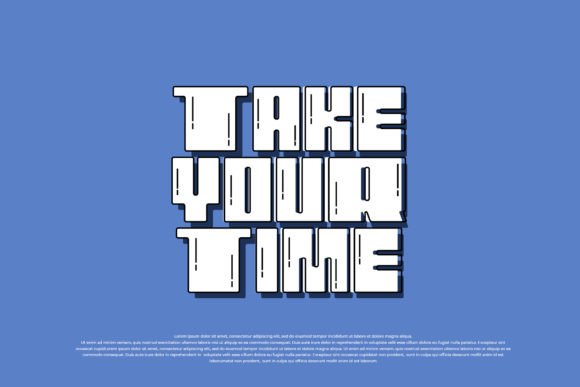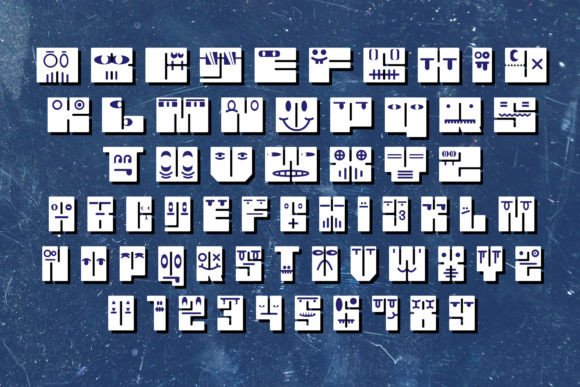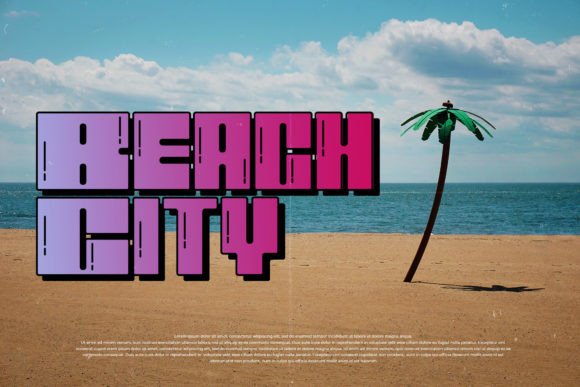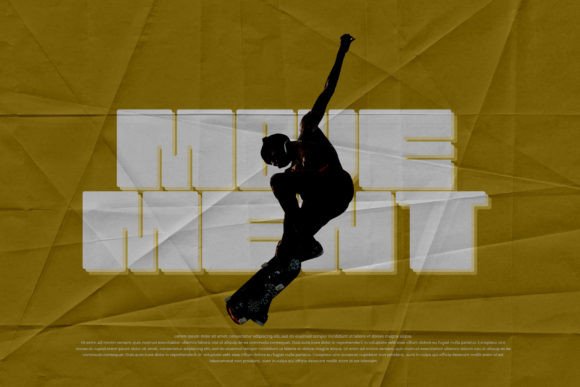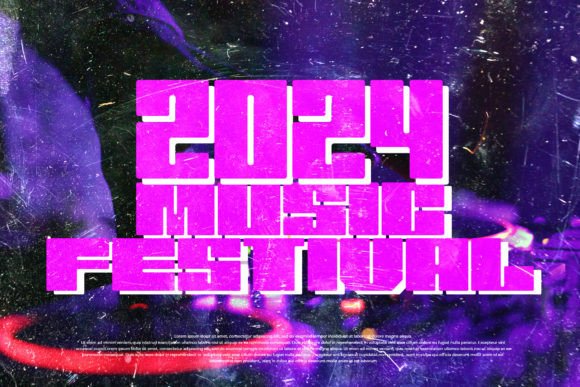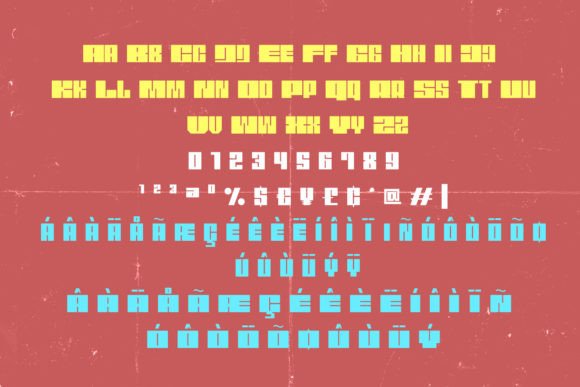
Introduction to Monssla Font
Have you ever stared at a blank canvas, desperate for the perfect font to bring your creative project to life? You’ve scoured the internet, searching for that elusive font that screams ‘style’ and ‘creativity.’ If you’re a designer, you know the struggle is real. But what if I told you that there’s a font that’s about to revolutionize the way you approach design?
Meet the Monssla Font, a stunning display font that’s perfect for posters, t-shirts, branding, social media, and more. With its block-bold style, this font is a game-changer for designers who crave a high-quality design resource that’s both versatile and eye-catching. And the best part? The Monssla Font is PUA encoded, making it easy to access all the amazing glyphs and ligatures you need to take your design to the next level.
Key Features of Monssla Font
- High-quality, professional font suitable for various creative projects, including graphic design, digital art, and typography.
- Designed with high-resolution graphics in mind, ensuring crisp and clear display on high-resolution screens.
- Monssla Font is available in a range of sizes, from 8pt to 72pt, making it suitable for various design applications.
- Unique characteristics include its modern and sleek design aesthetic, making it an ideal choice for contemporary creative projects.
Honest Review: Monssla Font
As a designer, I’m always on the lookout for high-quality design resources that can elevate my creative projects. The Monssla Font has caught my attention, and I’d love to share my honest review.
- ✨ The font has a unique and stylish design that can add a touch of sophistication to any project.
- ⚠️ The font may not be suitable for projects that require a more subtle or minimalist approach, as its bold design may overpower other elements.
- ⚠️ The font’s character set may not be as extensive as some other fonts on the market.
Overall, the Monssla Font is a solid addition to any designer’s toolkit. While it may have some limitations, its unique design and free download option make it a valuable resource for creative projects. With a little creativity and experimentation, designers can unlock the full potential of this high-quality font.
Tips for Getting the Most Out of Monssla Font
For best results, use Monssla Font on a transparent background to ensure that your text stands out against any background. You can also experiment with different font sizes and styles to achieve a unique look for your creative project.